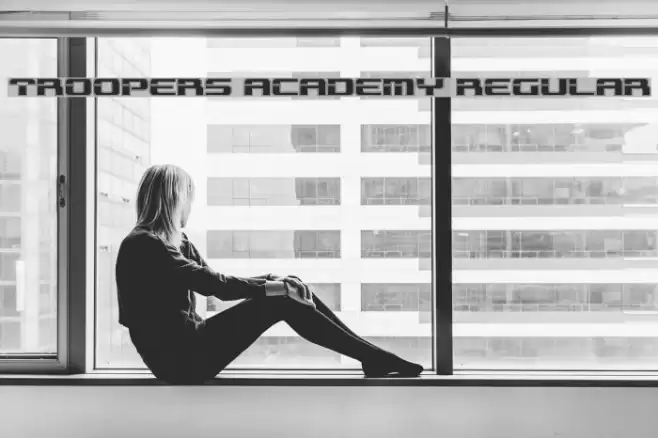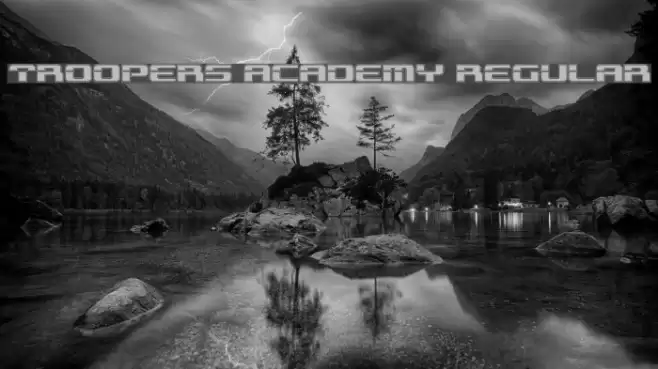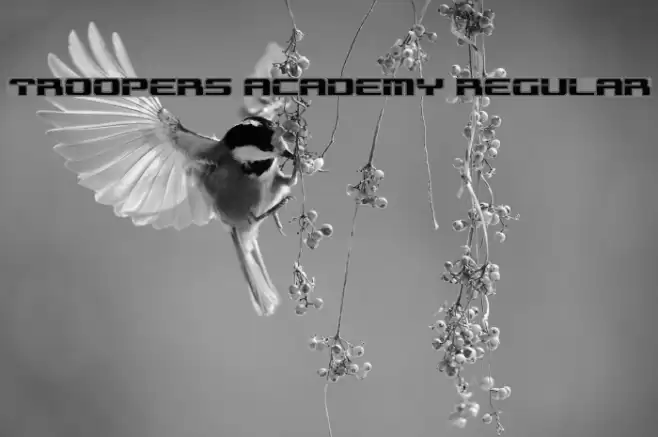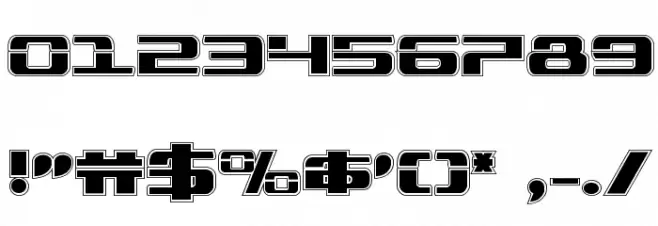
Troopers Academy Regular Font
Troopers Academy Regular Description
This font features a futuristic and bold design with a strong geometric structure. The characters are constructed with a combination of solid and outlined elements, giving them a distinctive, high-tech appearance. The uppercase letters are uniform in height, with sharp angles and straight lines that create a sense of precision and modernity. The lowercase letters maintain the same style, ensuring consistency across the typeface. The numerals are equally bold and geometric, matching the overall aesthetic. Special characters are designed to complement the primary character set, maintaining the same futuristic and structured look. This font is ideal for projects that require a modern and technological feel.
A futuristic, bold font with geometric and high-tech design elements from Uncategorized fonts.
- Proposed Projects: Ideal for technology branding, sci-fi movie posters, video game titles, and futuristic-themed designs.
- Overall Style: Futuristic